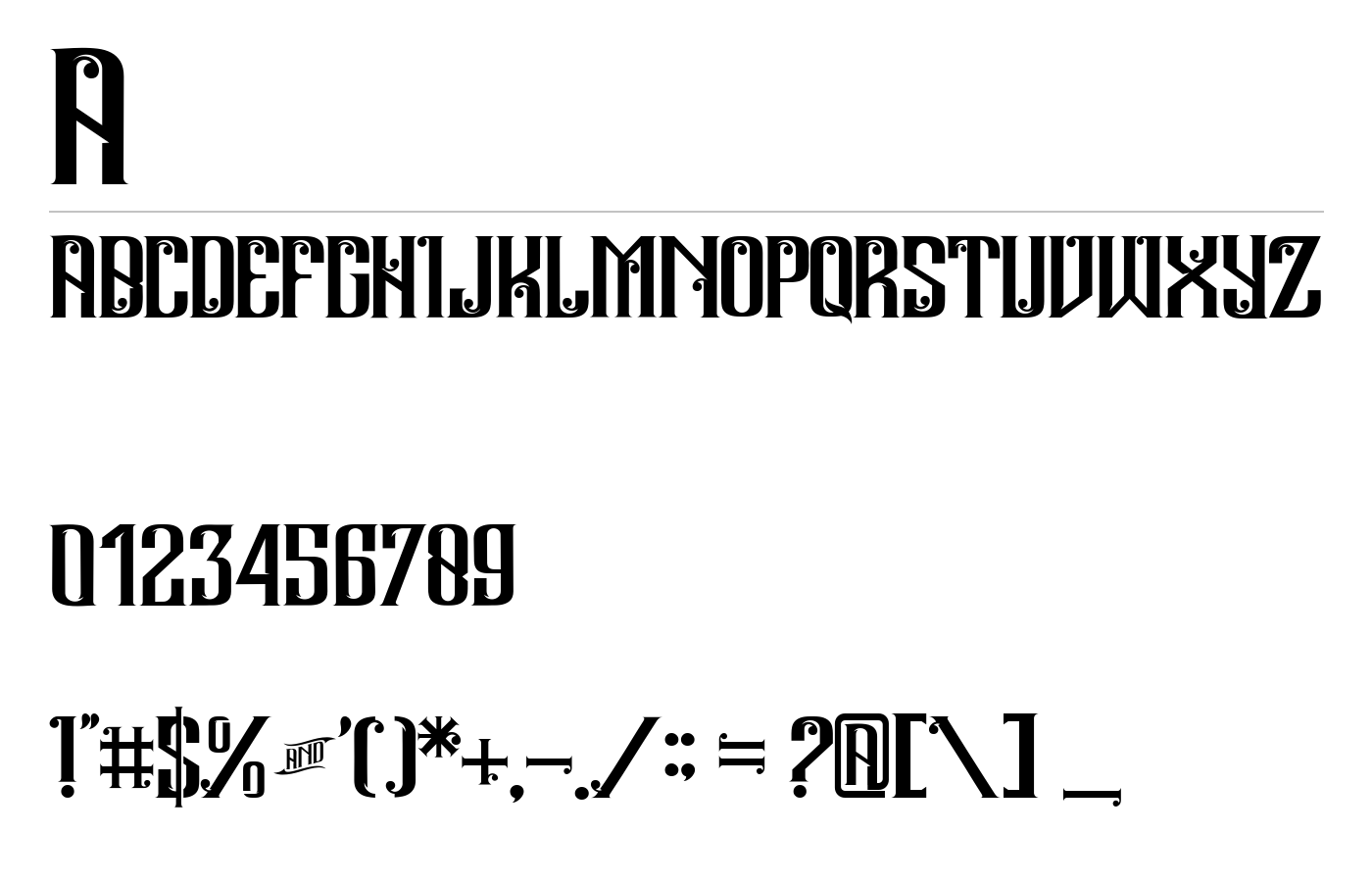
Andalas is a bold, condensed serif font with a distinct vintage and decorative flair, characterized by tall, narrow letterforms and unique ornamental details within its strokes. Its high contrast between thick and thin lines, combined with stylized serifs and elegant curls, makes it ideal for eye-catching headlines, logos, and branding that aim to evoke a nostalgic or artistic vibe. This font stands out with its strong personality, perfect for fashion or luxury projects that seek a blend of sophistication and creativity.
Andalas Font
About Andalas Font